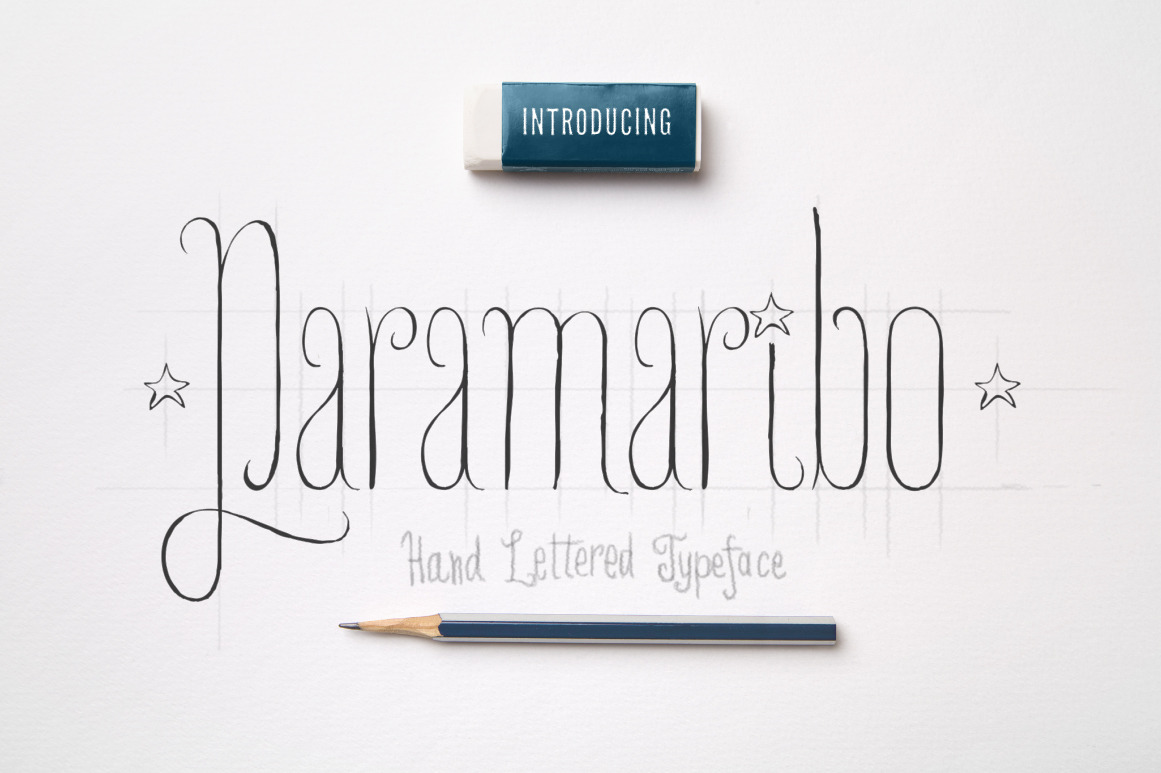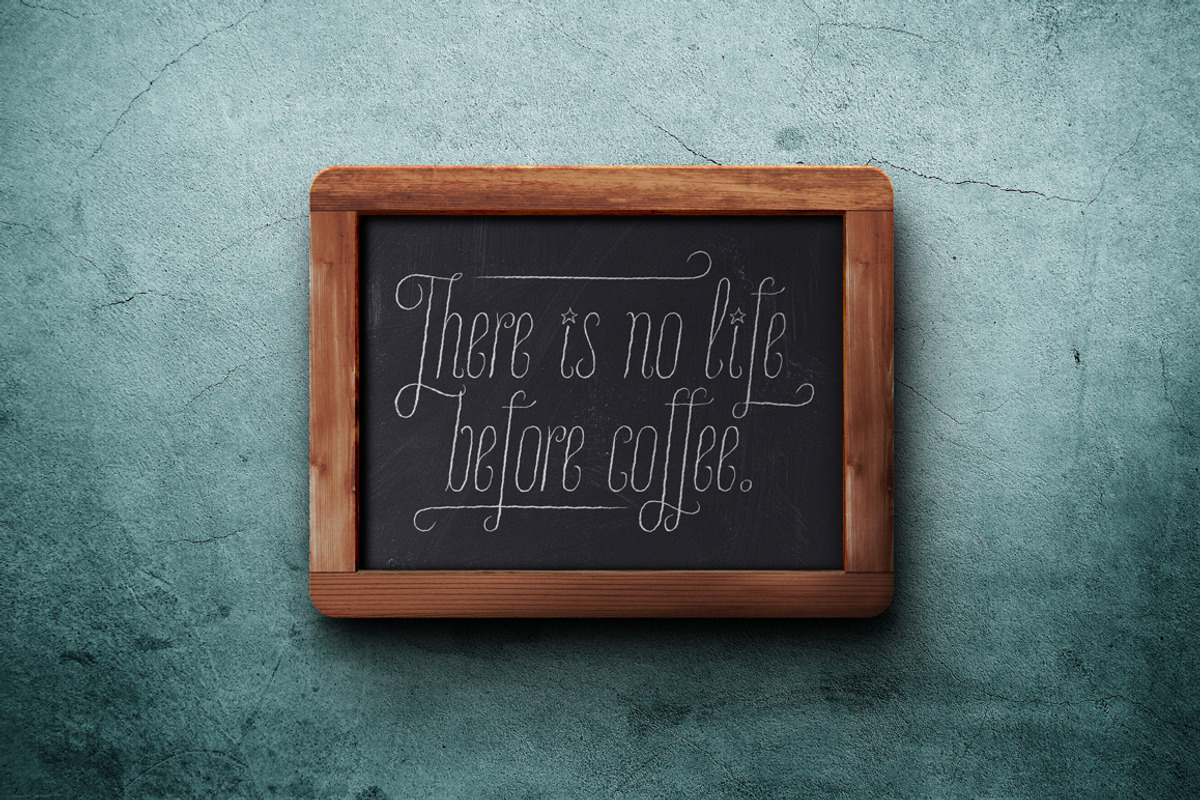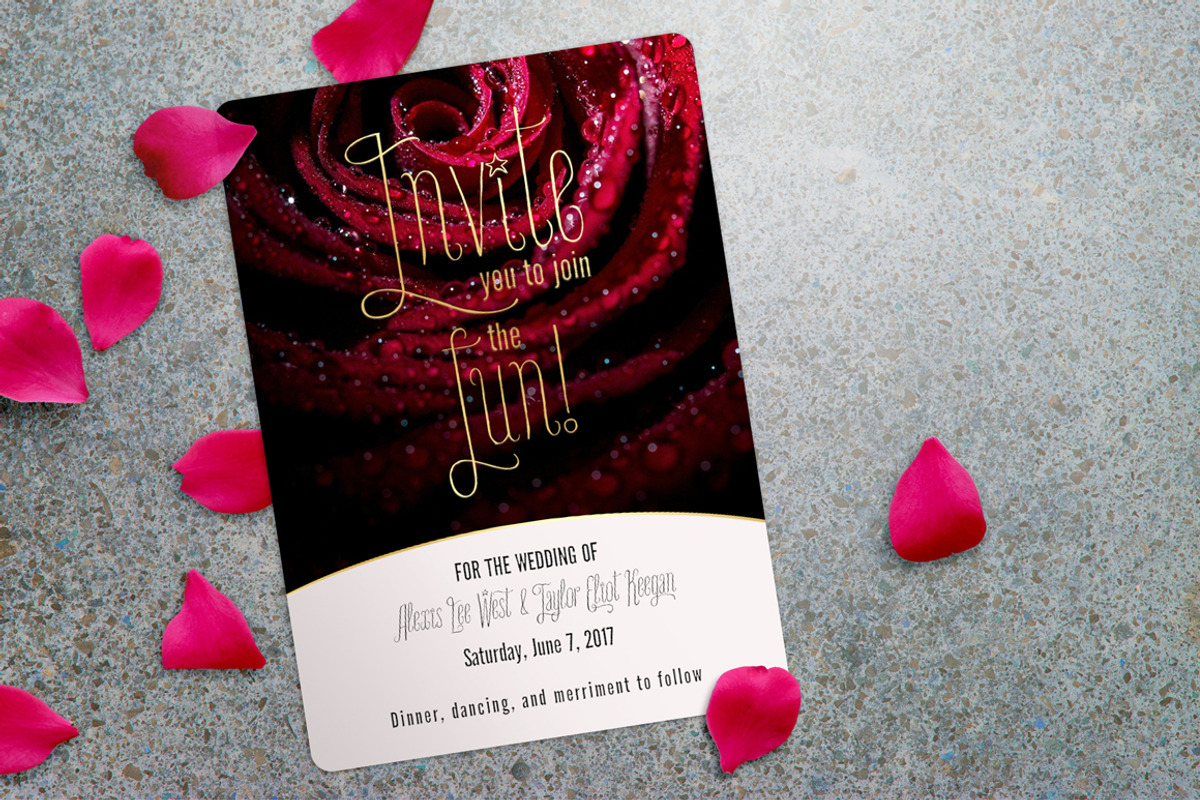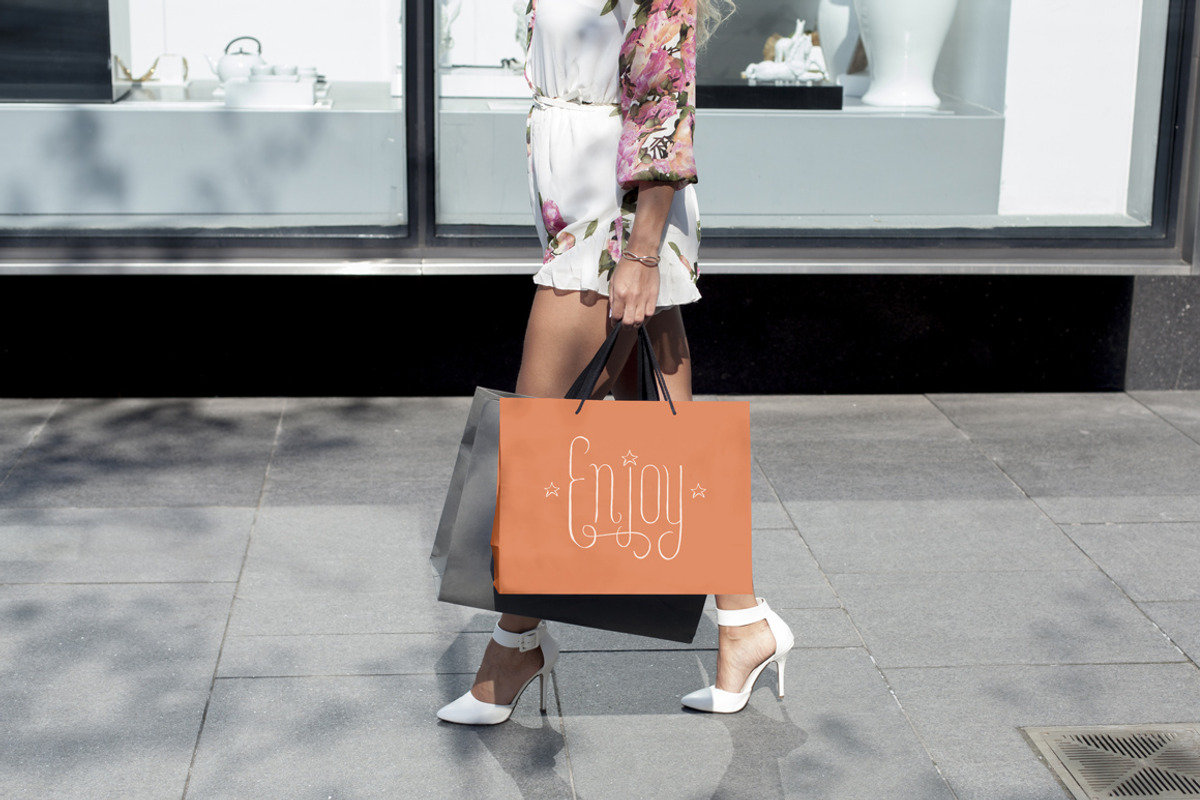
Paramaribo Font Family
Meet Paramaribo, a hand lettered, cute and decorative font. Paramaribo family includes two fonts with stylistic substitutions and 28 ligatures. Perfect for designing ads, logos, prints, social media texts, blogs, wedding branding, quotes and so much more.
Stylistic substitutions (those cute swashed end/beginning letters) are controlled by switching on/off OpenType feature as well as being accessible through glyphs panel in Adobe apps. Really very easy to use!
Paramaribo Light Condensed (with stylistic substitutions and ligatures)
Paramaribo Light Condensed Italic (with stylistic substitutions and ligatures)
Paramaribo has Latin multilingual support as well as uppercase letters, lowercase letters, numbers and basic punctuations.